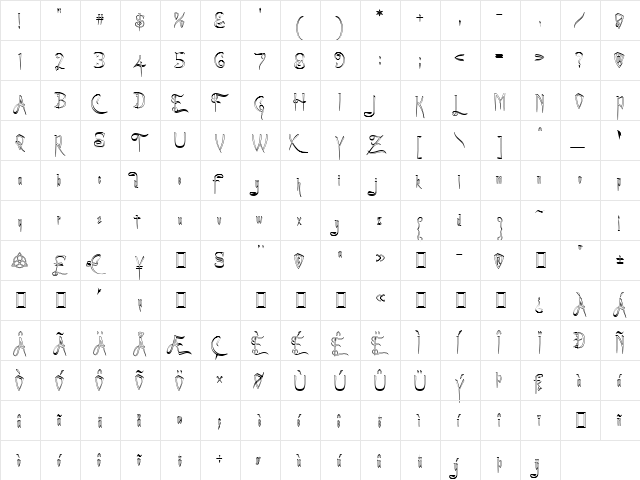
A Charming Font Outline Regular
Design Context for A Charming Font Outline Typeface
A Charming Font Outline brings ornamental detail and strong personality to headlines and identities, where visual impact matters more than quiet functionality.
Font Pairing: Pair with a clean neutral sans-serif for body copy to let A Charming Font Outline's character lead without overwhelming the composition.
Pro Tip: Treat A Charming Font Outline as the centrepiece of your typographic hierarchy. One strong heading set in a decorative face can carry an entire layout.